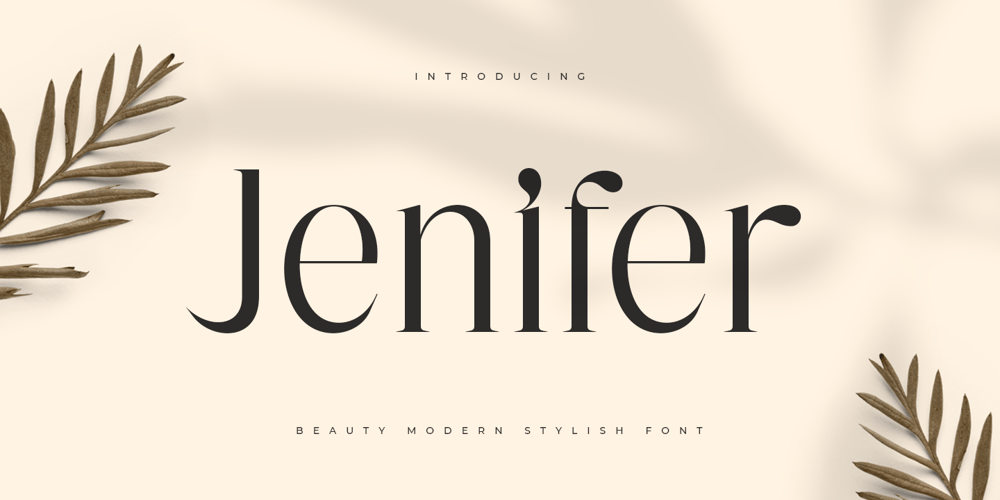
Jenifer Style Font Family was designed by Zamroni Hamzah and published by Sensatype Studio. Jenifer Style contains 1 styles and family package options. Jenifer is a Beauty Modern Stylish FontA new font that we created special for branding needs, with unique characters and awesome alternative characters are ready to add value of your brand. It so nice to leverage designer or product owner that need solutions to make their design look more beauty and modern. And specially for Salute font, We prepared any swash and any alternate characters to help you create unlimited variations for your creative needs.Jenifer is a Beauty Modern Stylish Font ready with: Any options to get creative variations (combination of Alternate) Preview as a inspirations that you can do with Jenifer font Ready with Lowercase and Uppercase characters Wish you enjoy our font. ๐